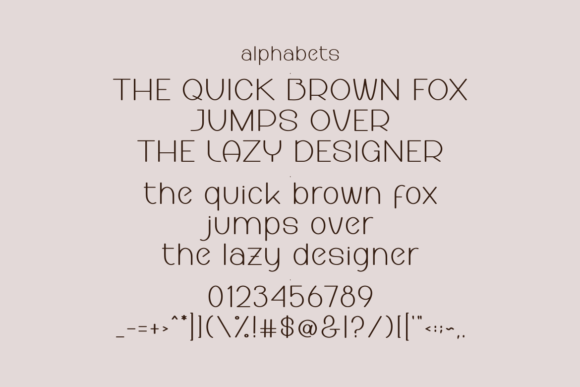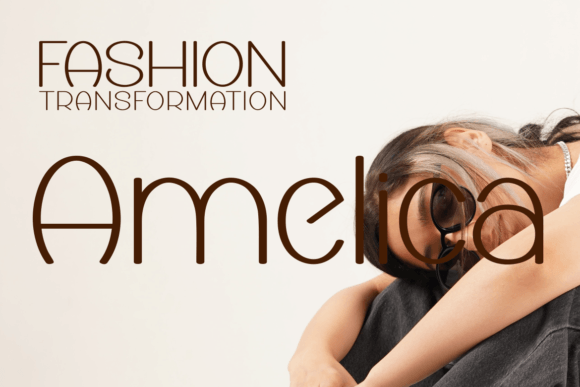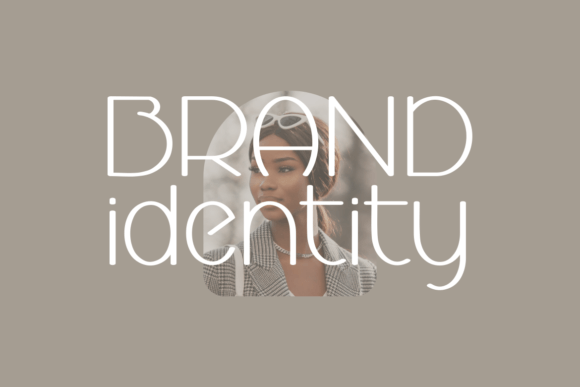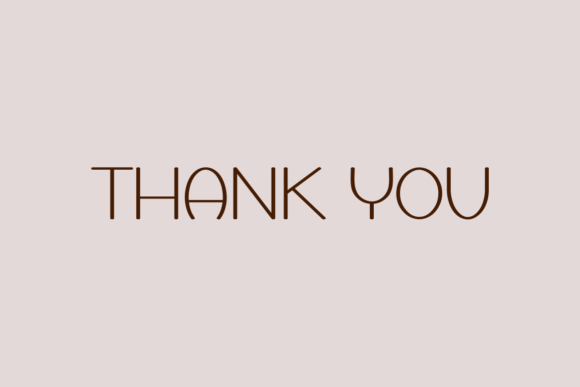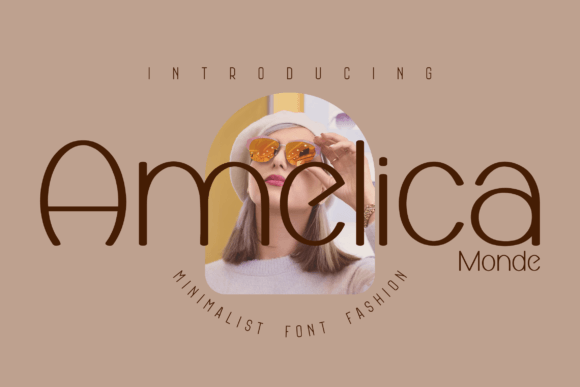
Introducing Amelica Monde Font: Elevate Your Designs with Elegance and Sophistication
In the world of typography, fonts play a crucial role in conveying the tone and personality of a brand or design. For designers and crafters seeking a font that exudes elegance, class, and modernity, Amelica Monde Font is an exceptional choice. This stunning sans serif font is versatile and can be used for a wide range of projects, from fashion and apparel to logos, branding, and advertisements.
What Makes Amelica Monde Font Stand Out?
Amelica Monde Font is characterized by its clean lines, simple shapes, and a sophisticated aesthetic that instantly elevates any design. Its modern sans serif style ensures that your projects look contemporary and sleek, making it perfect for designers who aim to create a lasting impression. Whether you’re working on a fashion magazine, an apparel brand, or a luxury product logo, Amelica Monde Font brings a level of refinement and poise that’s hard to match.
One of the key advantages of Amelica Monde Font is its incredible versatility. It’s a font that can seamlessly transition across various mediums and applications. Here are some of the areas where Amelica Monde Font truly shines:
• Fashion and Apparel Projects: The font’s elegant and modern look makes it a perfect fit for fashion brands, clothing lines, and accessory designers looking for a sophisticated typographic voice.
• Signatures and Logos: Create memorable and impactful logos and signatures that stand out with Amelica Monde Font’s unique blend of simplicity and luxury.
• Album Covers and Music Branding: For musicians and music producers, this font offers a stylish way to brand albums, singles, and promotional materials.
• Magazines and Editorial Content: Add a touch of class to your magazine, blog, or editorial content with a font that’s both readable and visually appealing.
• Social Media and Digital Content: Stand out on social media platforms with eye-catching titles and posts that utilize Amelica Monde Font’s modern aesthetic.
• Advertisements and Marketing Materials: Whether it’s for print or digital ads, this font helps create compelling and sophisticated marketing materials.
Why Choose Amelica Monde Font?
Choosing Amelica Monde Font for your design projects comes with numerous benefits:
• Ease of Use: As a sans serif font, Amelica Monde is highly legible across various sizes and resolutions, ensuring your message is conveyed clearly.
• Customization: The font’s simplicity allows for easy customization to fit your brand’s specific needs, whether through color changes, size adjustments, or creative integrations.
• Timeless Appeal: Unlike trend-specific fonts, Amelica Monde’s classic yet modern design ensures it remains relevant and stylish for years to come.
Amelica Monde Font is more than just a typeface; it’s a design statement that speaks of elegance, sophistication, and modernity. Its versatility and aesthetic appeal make it an invaluable asset for designers and crafters working on a wide array of projects. Whether you’re aiming to create a strong brand identity, elevate your marketing materials, or simply add a touch of class to your designs, Amelica Monde Font is an excellent choice. Embrace the beauty of typography with Amelica Monde Font and watch your designs transform into stunning works of art.
Explore the possibilities with Amelica Monde Font today and discover a world where elegance meets modern design.